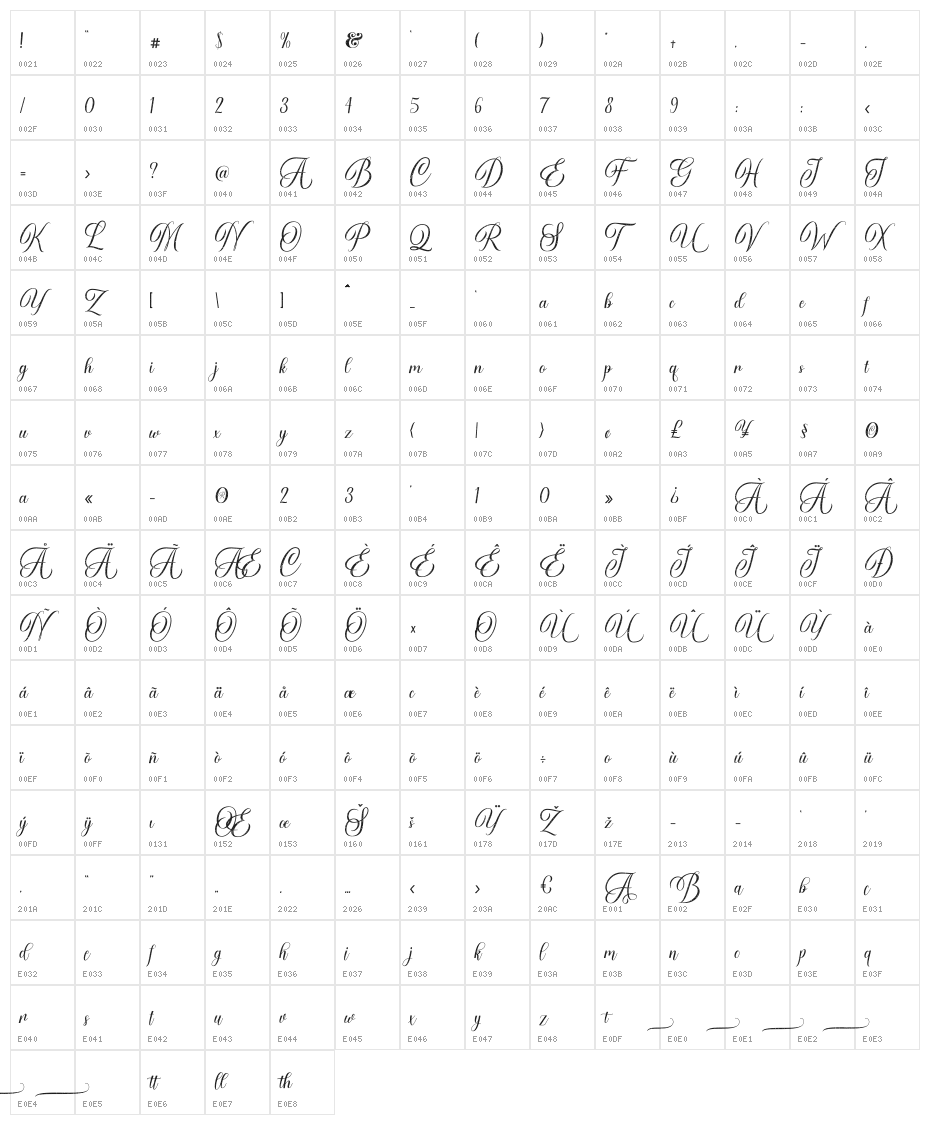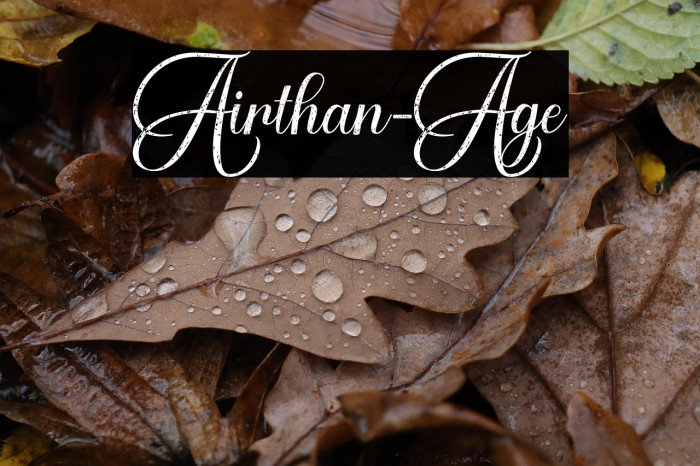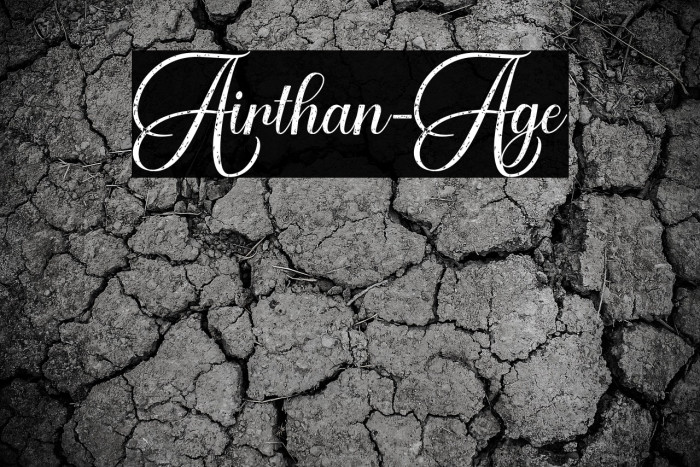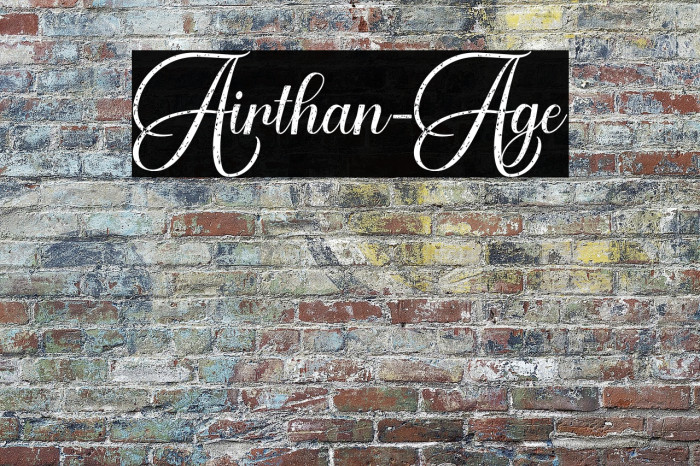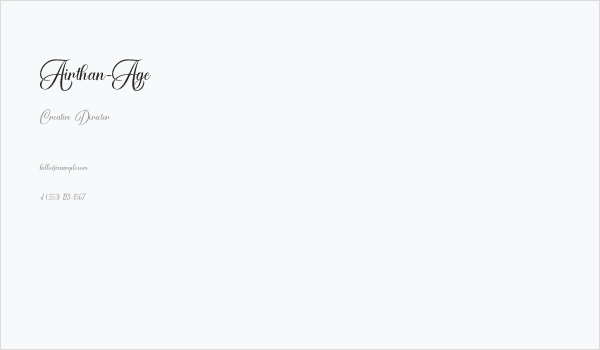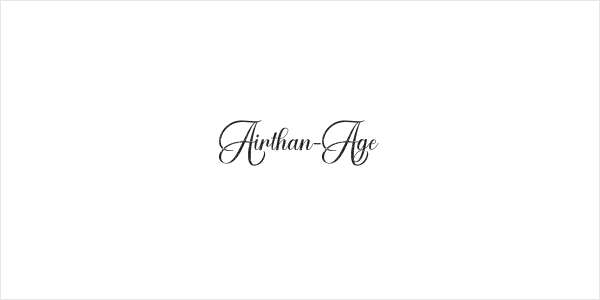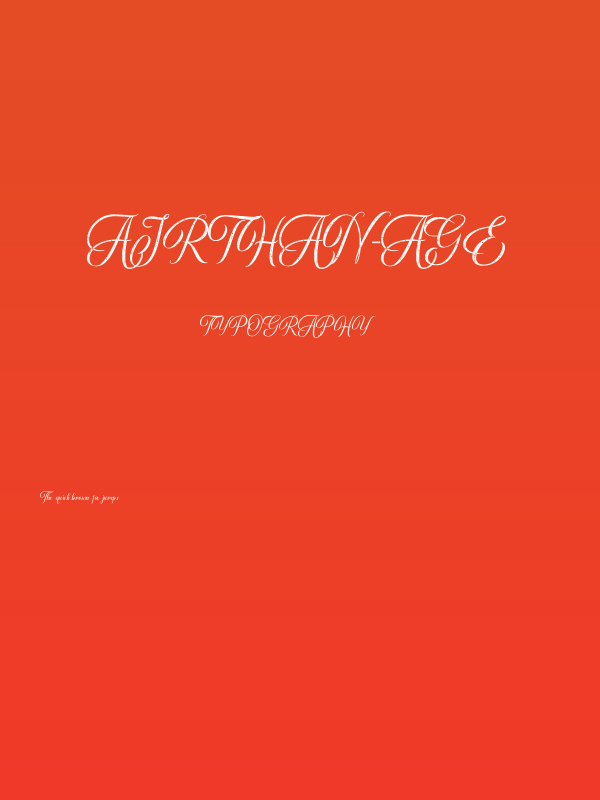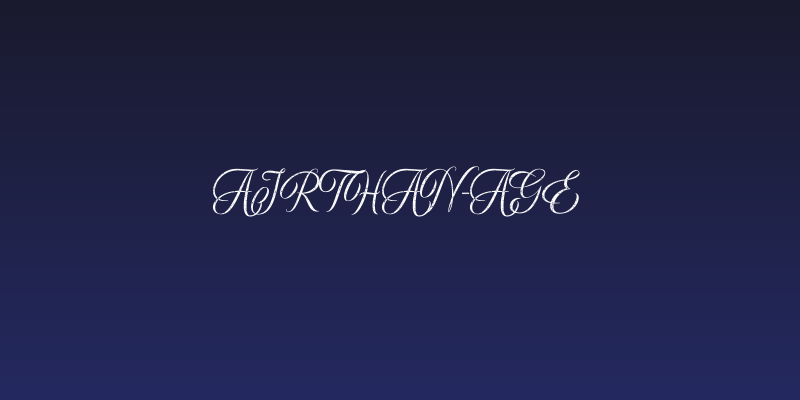
Airthan-Age Font
Airthan-Age Description
This elegant script font features flowing, cursive letterforms with a sophisticated flair. The uppercase letters are characterized by their intricate loops and swashes, creating a sense of movement and grace. The lowercase letters maintain a consistent style, with smooth, rounded curves that enhance readability while preserving the font's decorative nature. The numerals and special characters are designed to complement the overall aesthetic, with a similar emphasis on fluidity and elegance. This font is perfect for projects that require a touch of class and refinement.
| Overall Style | Elegant, Decorative |
| Use Case | Headlines, Invitations, Logos |
| Proposed Projects | Ideal for wedding invitations, elegant branding, luxury packaging, and decorative headings. |